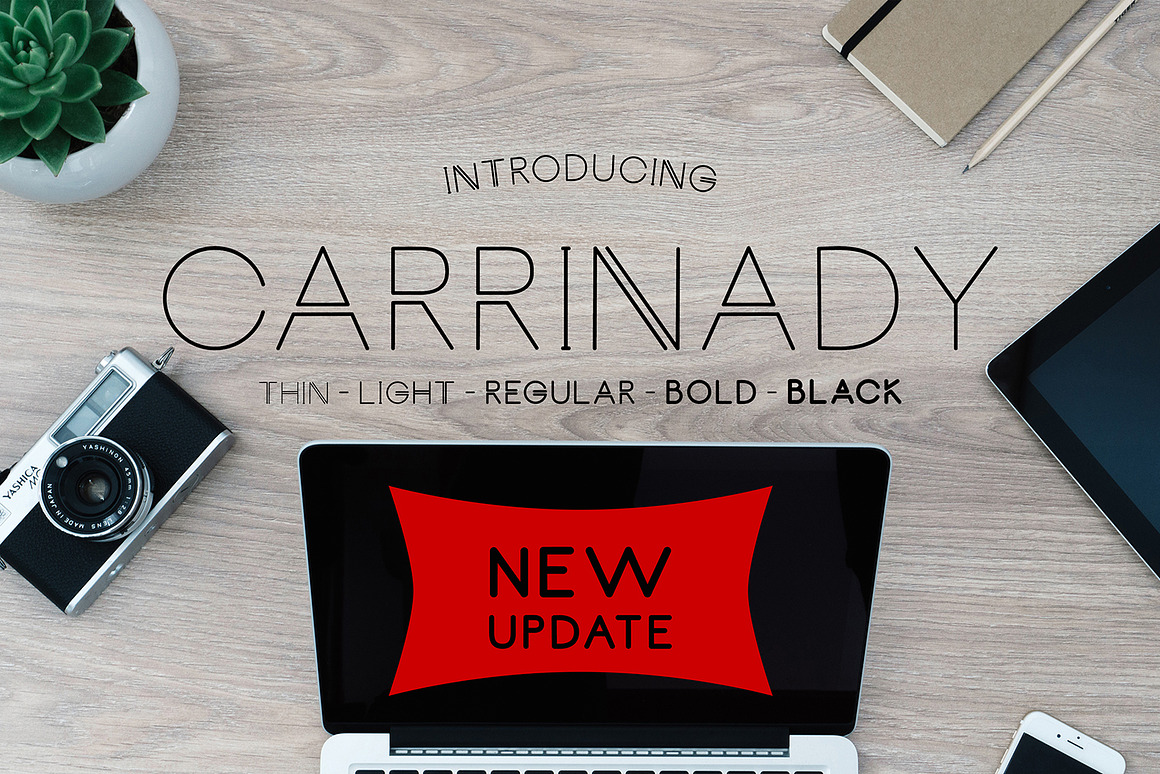
Carrinady Family Font
This elegant typeface family is perfect for luxury wedding planning, upscale event coordination, boutique hospitality branding, refined personal stationery, exclusive invitation design, sophisticated fashion labels, premium lifestyle marketing, and elegant editorial layouts. Carrinady Family Font delivers refined versatility in applications where coordinated elegance and sophisticated flexibility are essential for creating cohesive brand experiences across diverse luxury applications.
What makes Carrinady Family Font so exciting is its masterful orchestration of complementary typeface styles that work harmoniously together while maintaining individual character. The font family features beautifully coordinated letterforms with consistent design DNA that allows seamless integration across various typographic needs. Each style has been thoughtfully crafted to ensure optimal performance individually while contributing to a unified family aesthetic that communicates sophistication and attention to detail. The family's versatile personality creates endless design possibilities while maintaining elegant consistency, making it perfect for brands requiring comprehensive typographic systems that reflect refined taste and professional polish.
The Carrinady Family Font includes comprehensive style variations: Regular, Bold, Light, Italic, Script, and Display versions. This sophisticated collection provides designers with complete typographic flexibility to create elegant hierarchies and maintain visual consistency across complex luxury brand applications. Each family member preserves the collection's inherent sophistication while offering unique personality traits for various high-end communication needs and refined design contexts.
Whether you're developing comprehensive luxury brand identities, creating sophisticated wedding industry materials, or designing elegant lifestyle campaigns, Carrinady Family Font Free Download offers the coordinated aesthetic that discerning clients expect from premium brands. Its refined versatility makes it particularly suitable for luxury event planners, high-end hospitality companies, exclusive fashion boutiques, and sophisticated lifestyle brands. The font family's harmonious presence ensures consistent elegance across both print and digital applications, while its comprehensive range adapts beautifully to various luxury contexts and refined aesthetic approaches.
This distinguished font family represents the ultimate choice for designers who understand the importance of coordinated typography in creating sophisticated, cohesive luxury brand experiences.